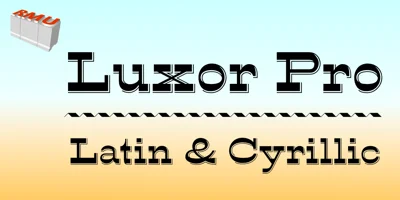
Luxor Pro Font
The Luxor Pro Font is ideal for vintage posters, advertisements, packaging, and branding, offering a bold, Victorian-inspired aesthetic.
This font is exciting because its semi-encircled Egyptienne design with exaggerated serifs captures the opulent charm of fin-de-siècle European and American typography.
The Luxor Pro family includes a single Regular style, perfect for creating striking, nostalgic designs.
Step into the elegance of the Victorian era with the Luxor Pro Font, a serif typeface designed by Ralph M. Unger and published by RMU in 2010. Known for its semi-encircled Egyptienne style with bold, exaggerated serifs, Luxor Pro is perfect for crafting eye-catching headlines, logos, or vintage-inspired advertisements. With 400+ glyphs supporting up to 82 languages, including Spanish, English, Russian, and German, it ensures versatility across print and digital platforms in OTF, TTF, and WOFF formats. As 2025 design trends favor bold, nostalgic typography, downloading Luxor Pro Font keeps your work timeless and impactful. Test the demo today at myfonts.com for personal use, and consider purchasing a commercial license for full access.